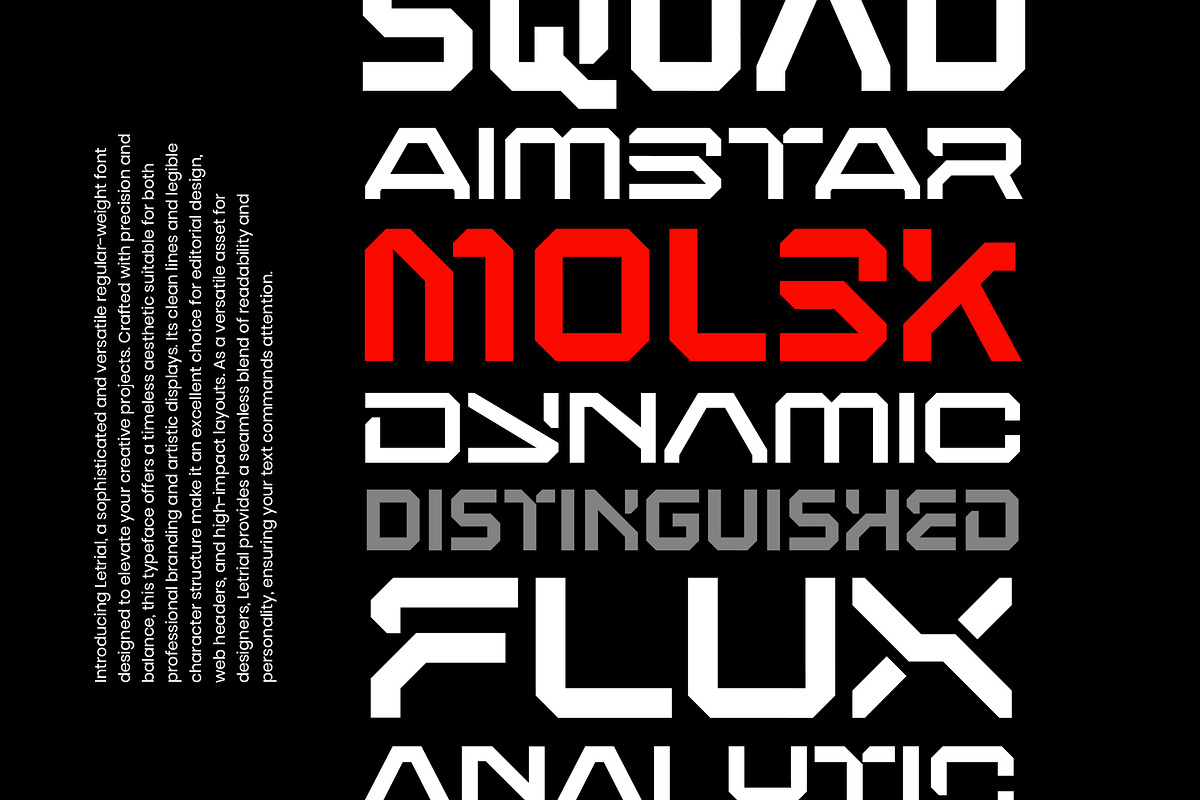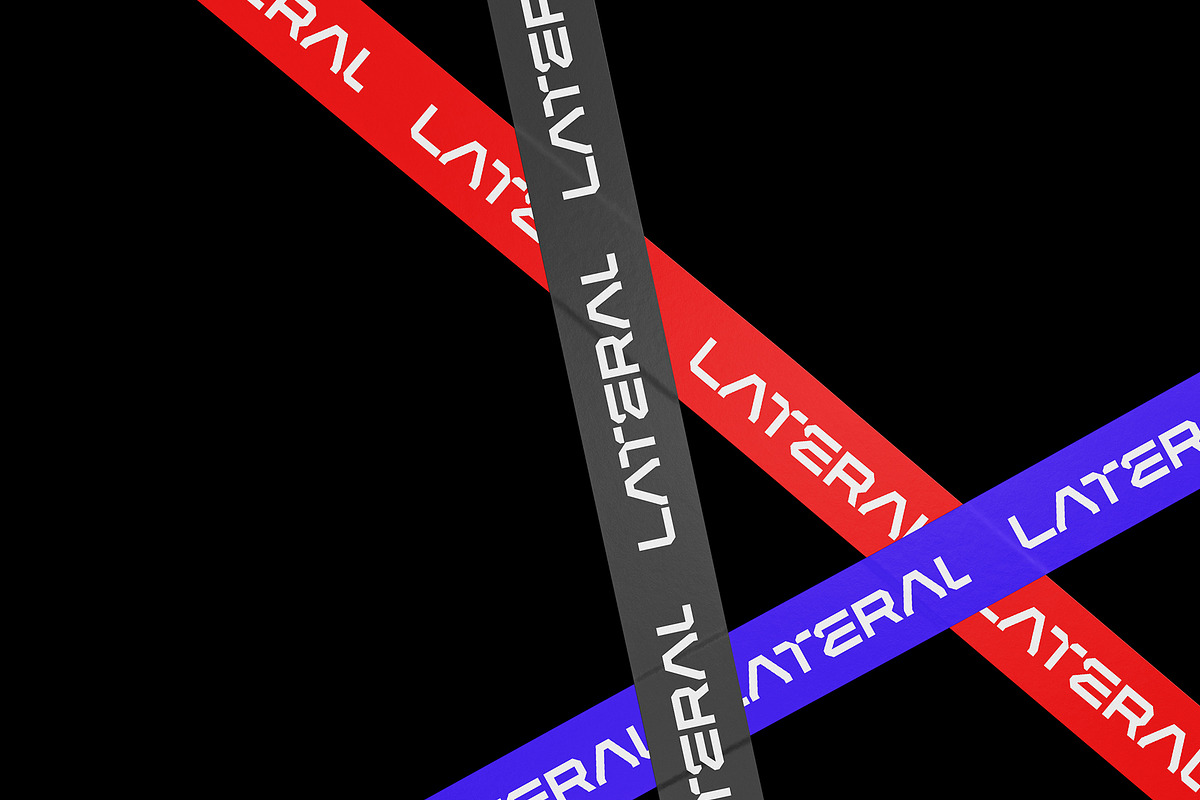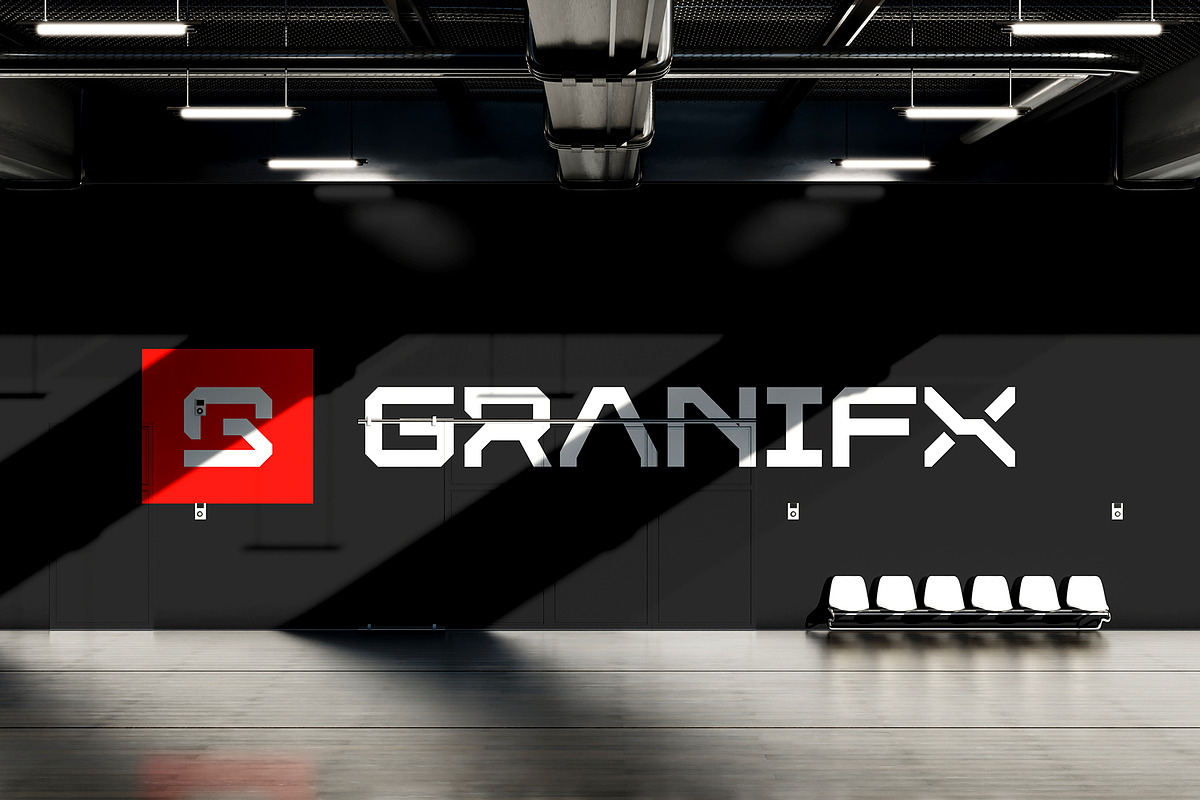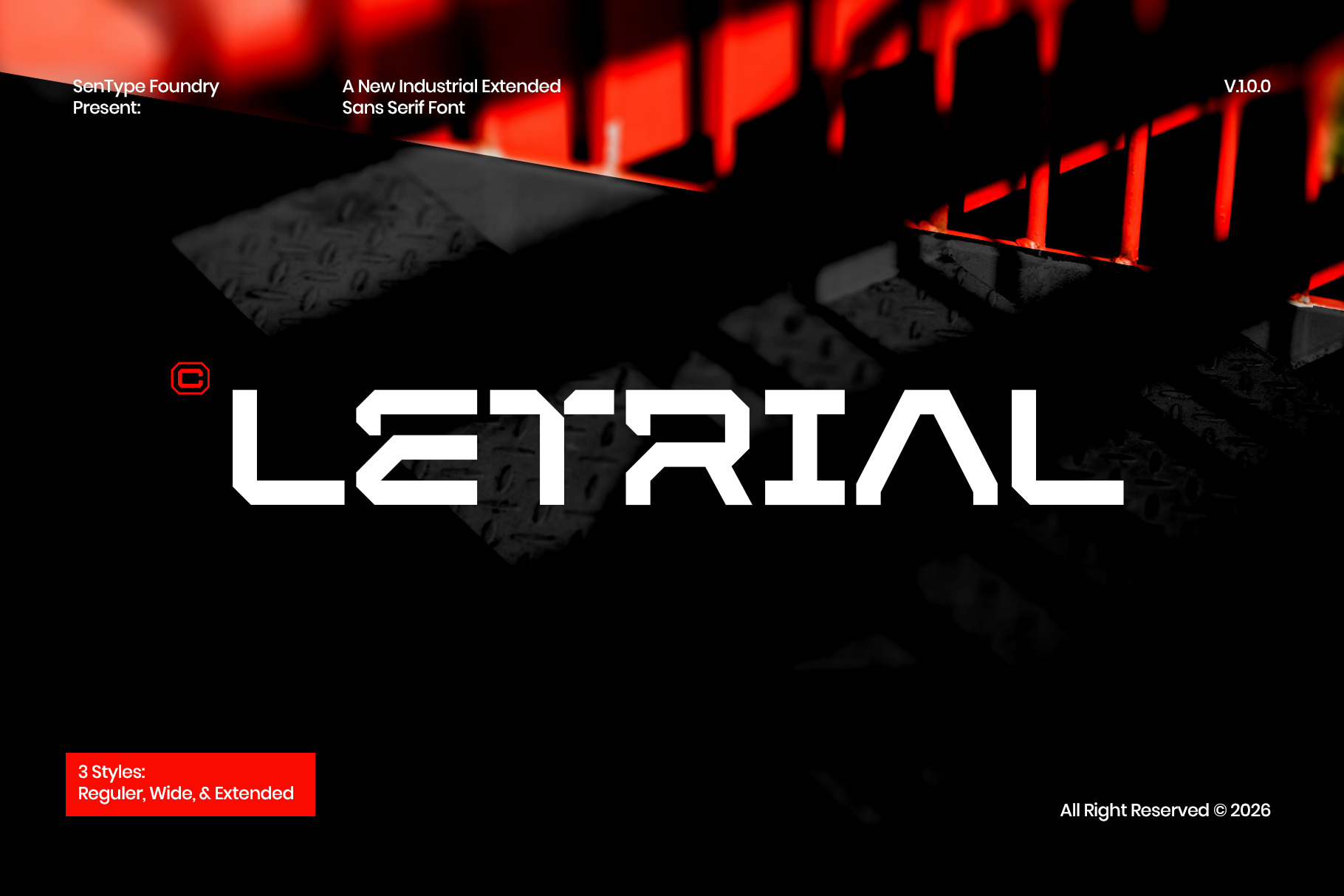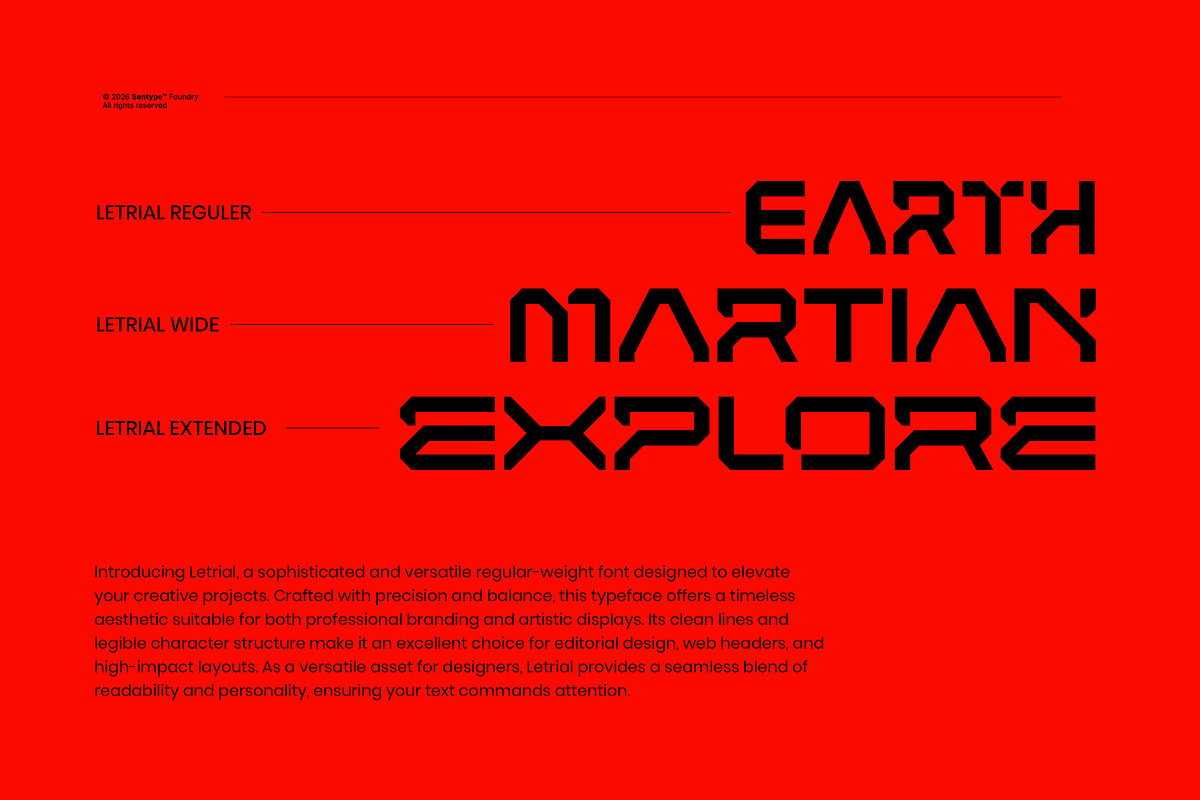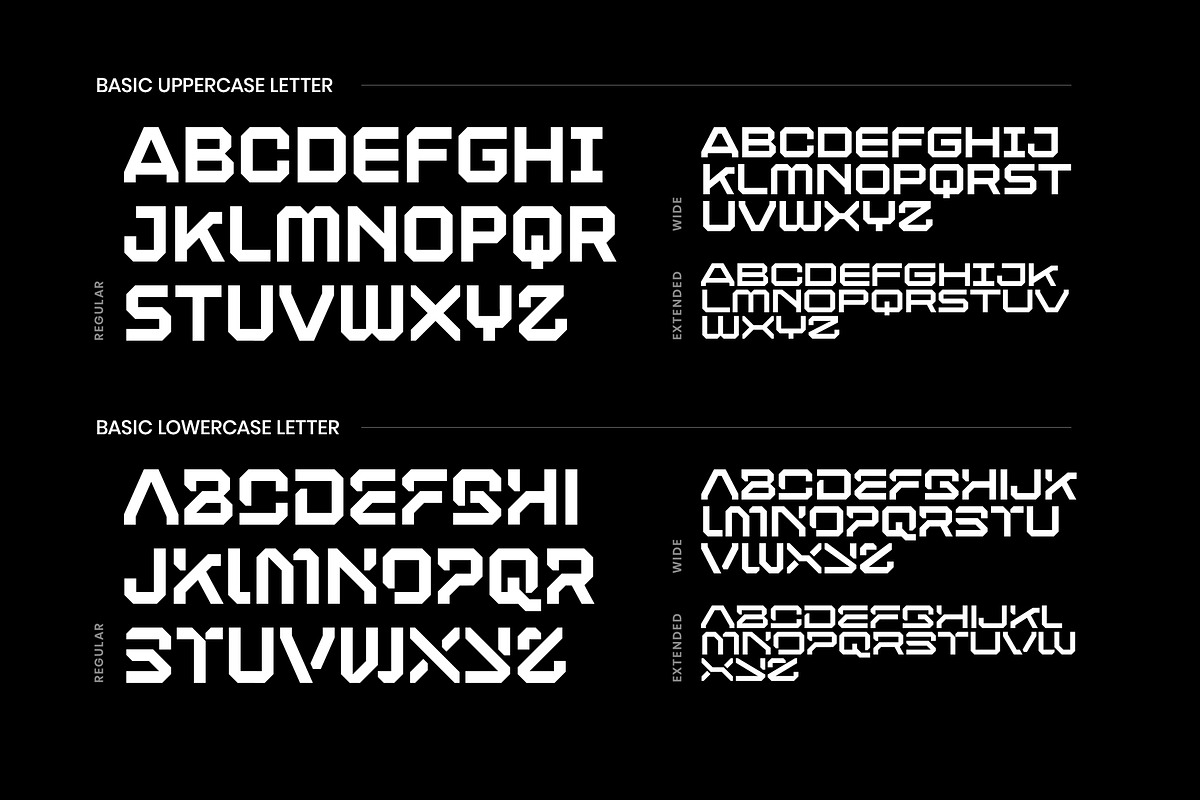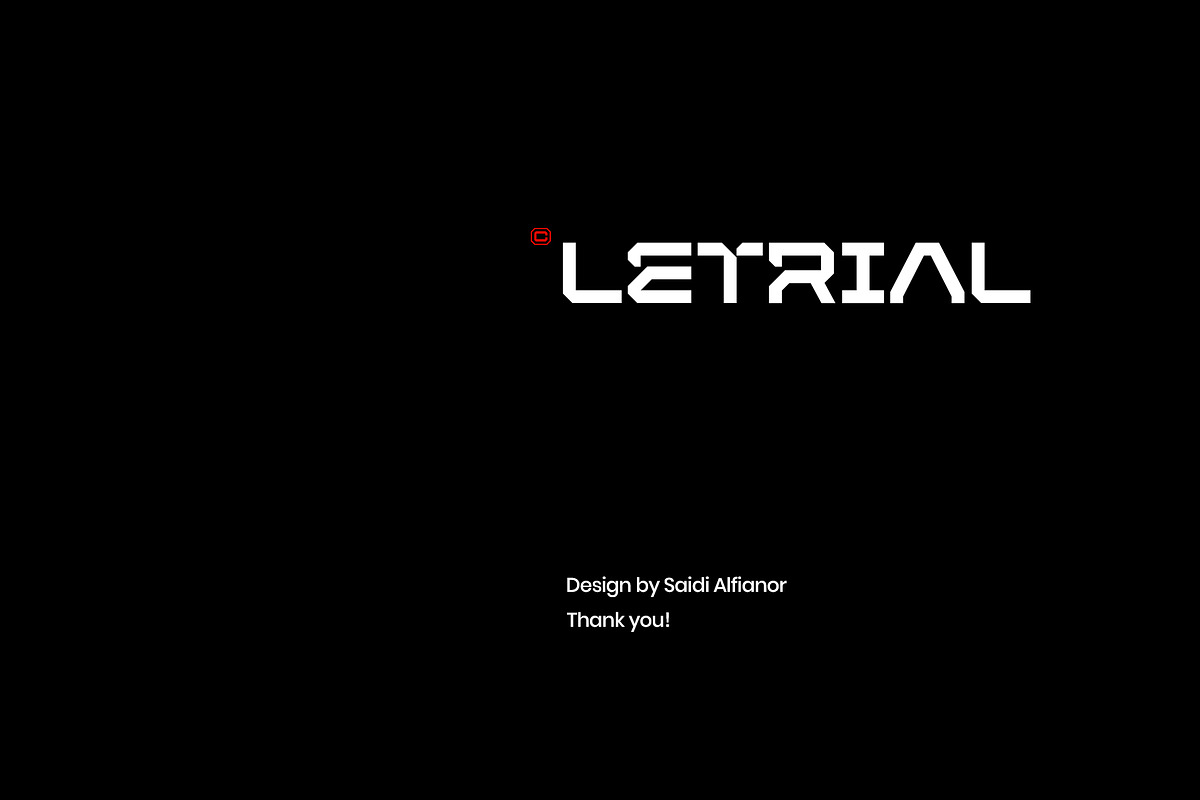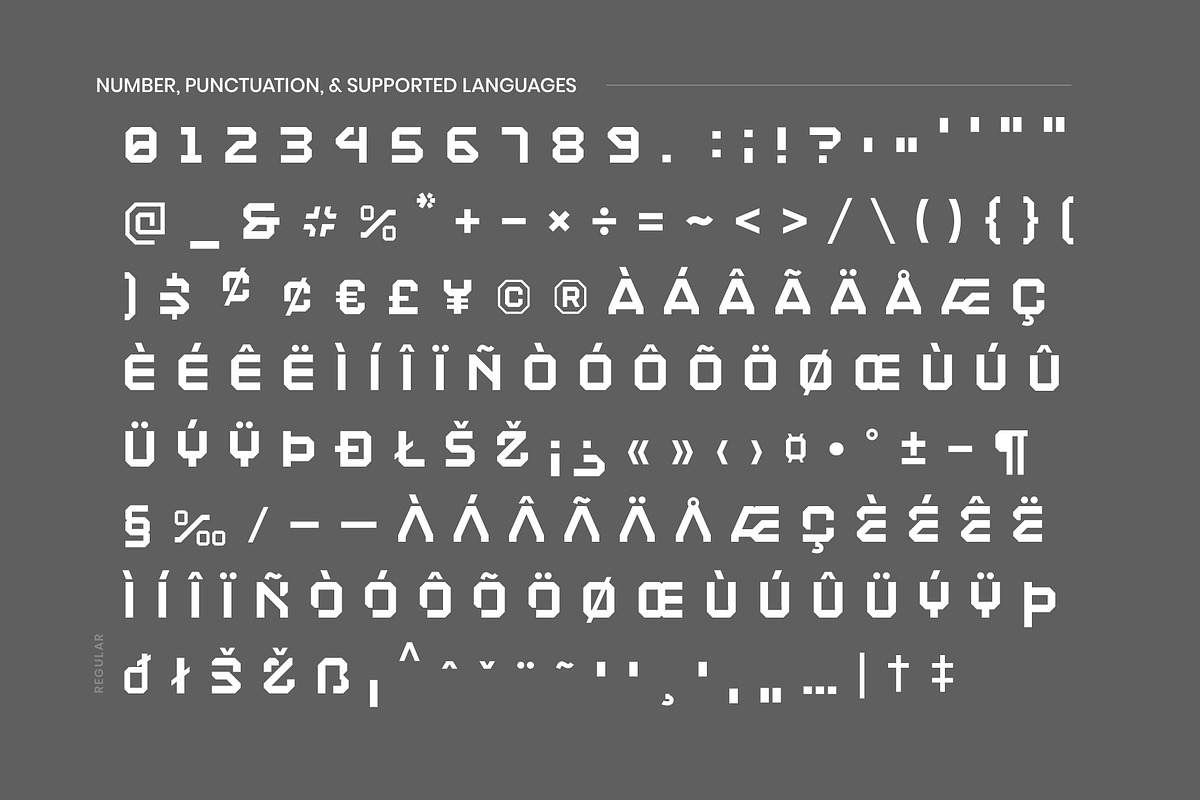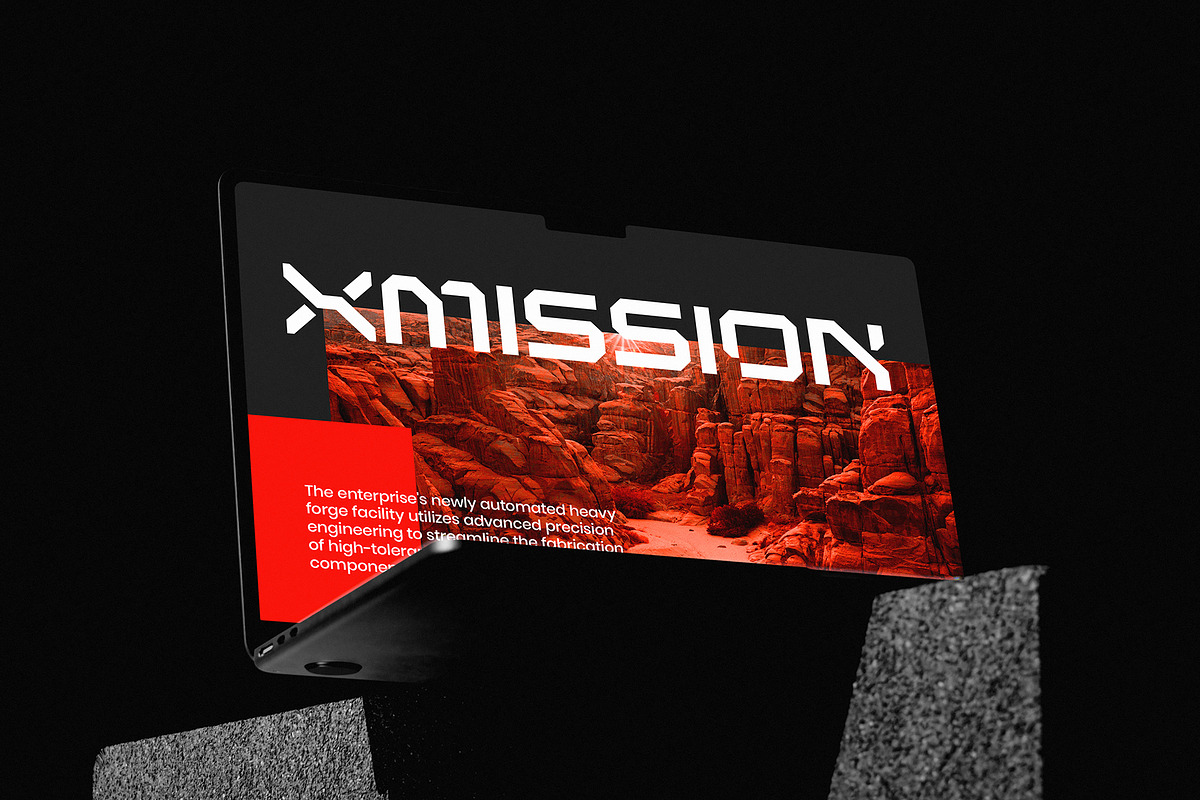
LETRIAL Square Industrial Font
Introducing Letrial, a sophisticated and versatile regular-weight font designed to elevate your creative projects. Crafted with precision and balance, this typeface offers a timeless aesthetic suitable for both professional branding and artistic displays. Its clean lines and legible character structure make it an excellent choice for editorial design, web headers, and high-impact layouts. As a versatile asset for designers, Letrial provides a seamless blend of readability and personality, ensuring your text commands attention. With its comprehensive character set and thoughtful design, this font is ready to become a staple in your digital design toolkit. Elevate your typography today by adding Letrial to your professional collection and experience the difference in your visual storytelling.